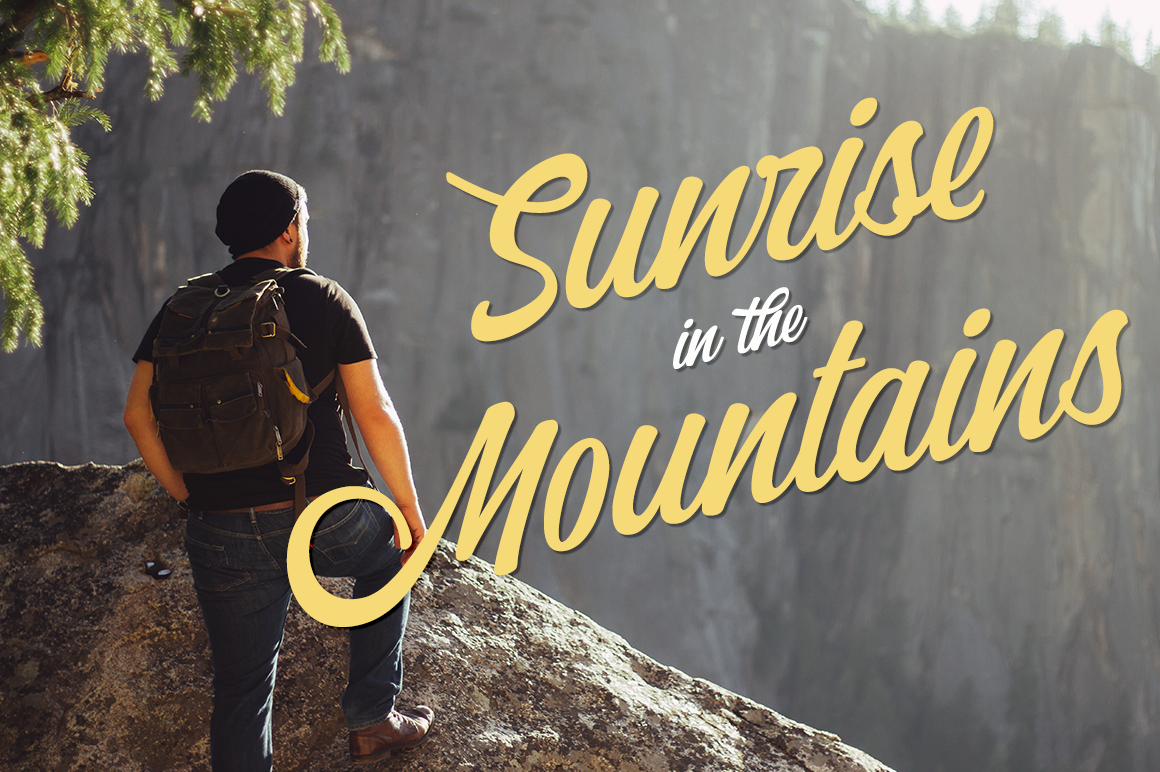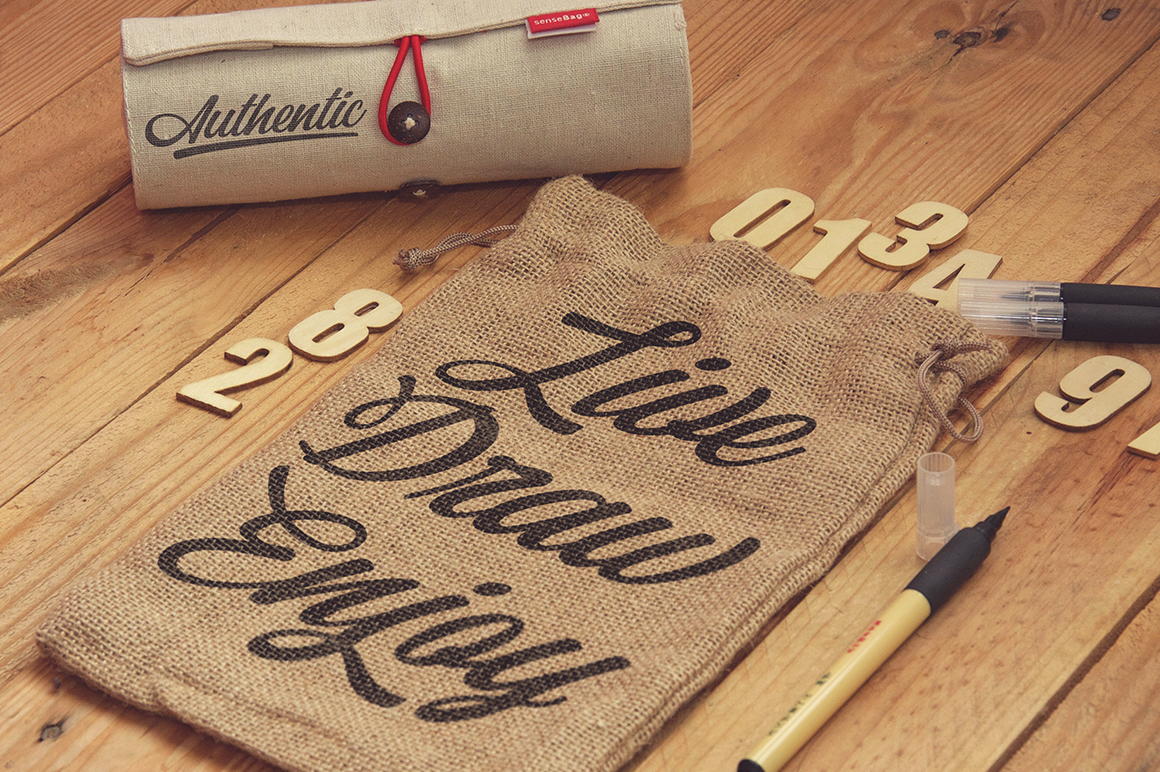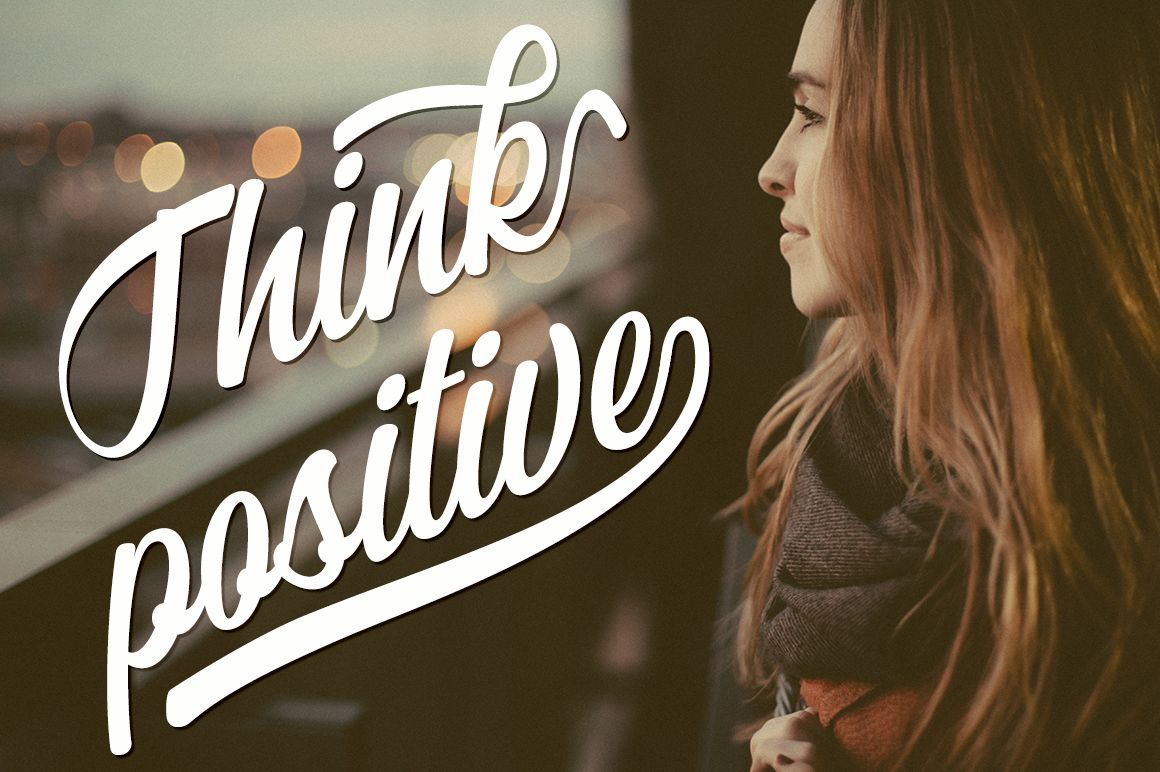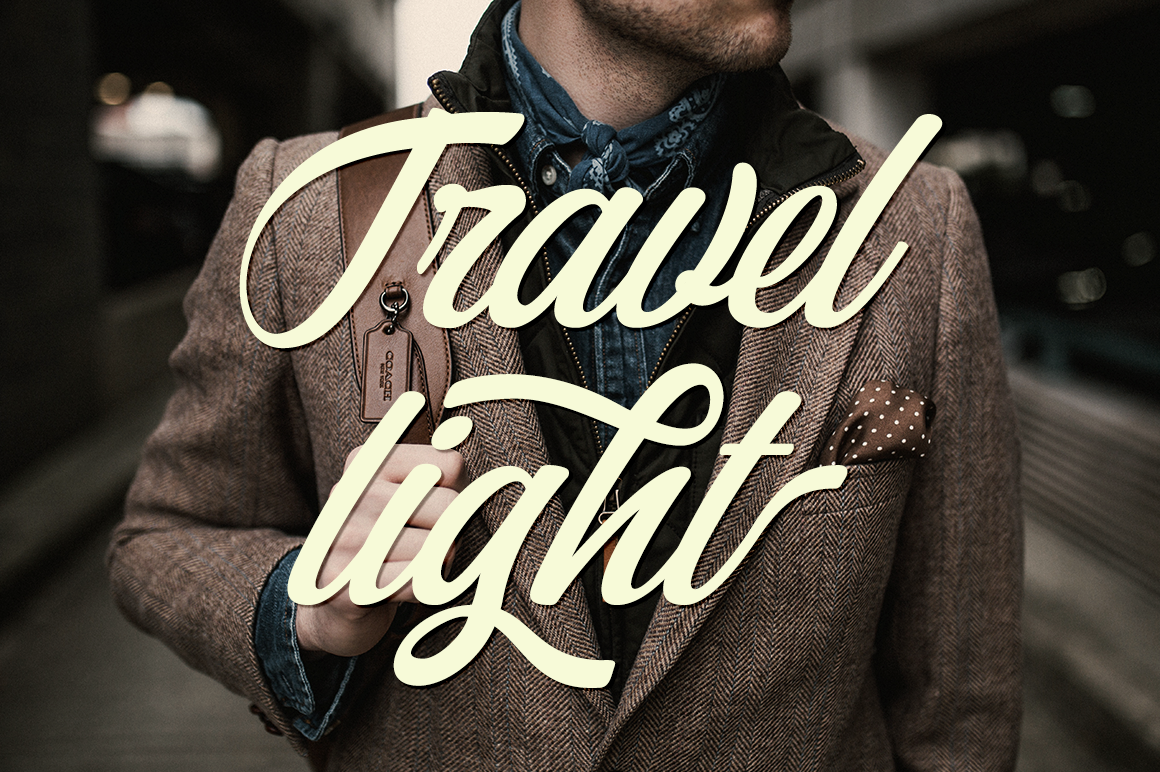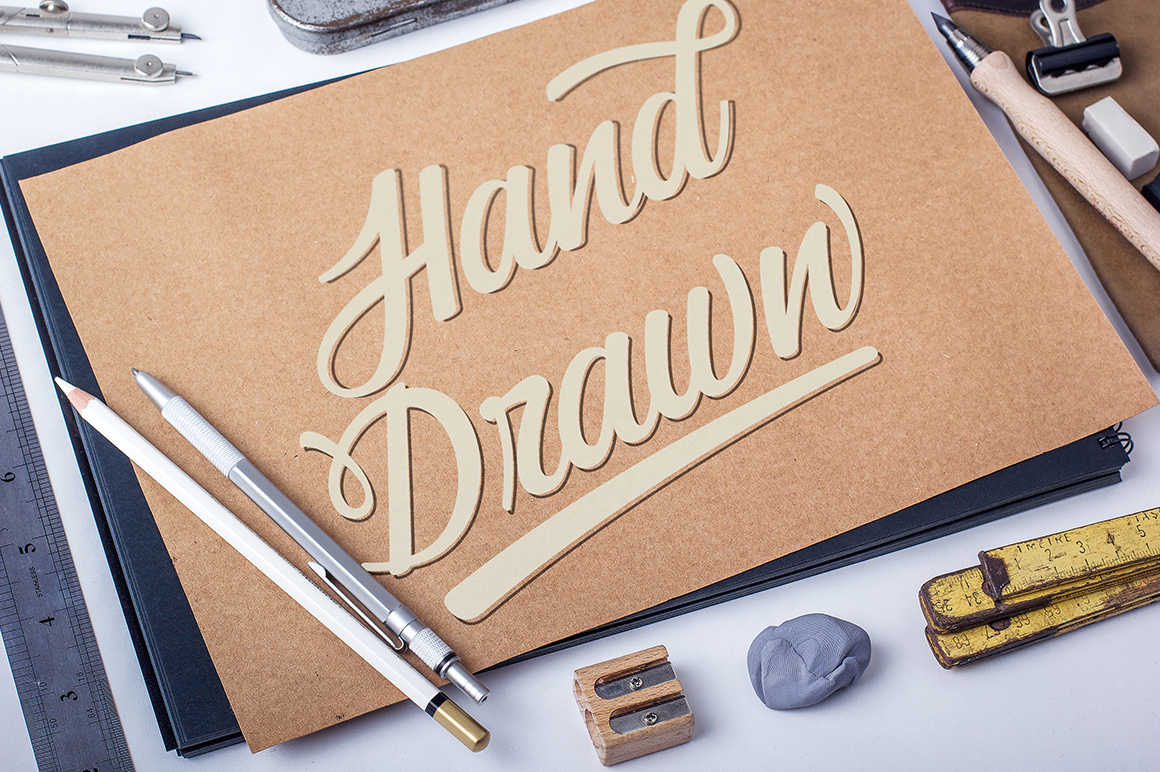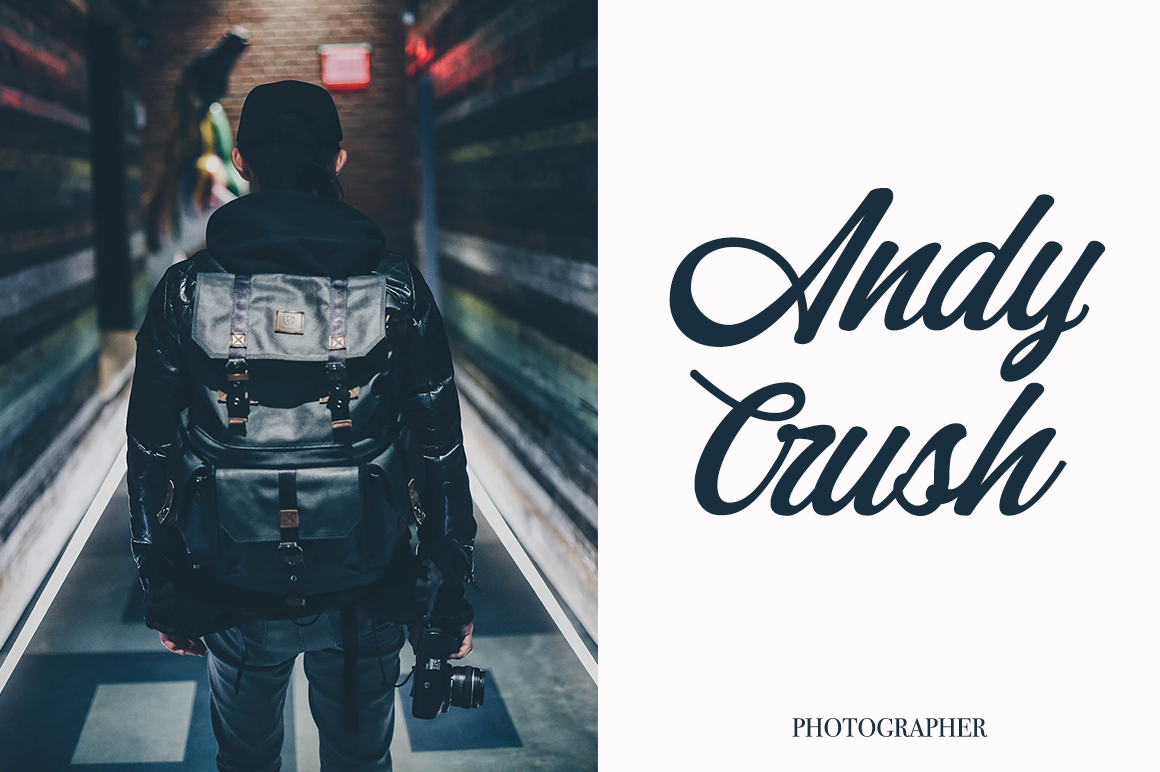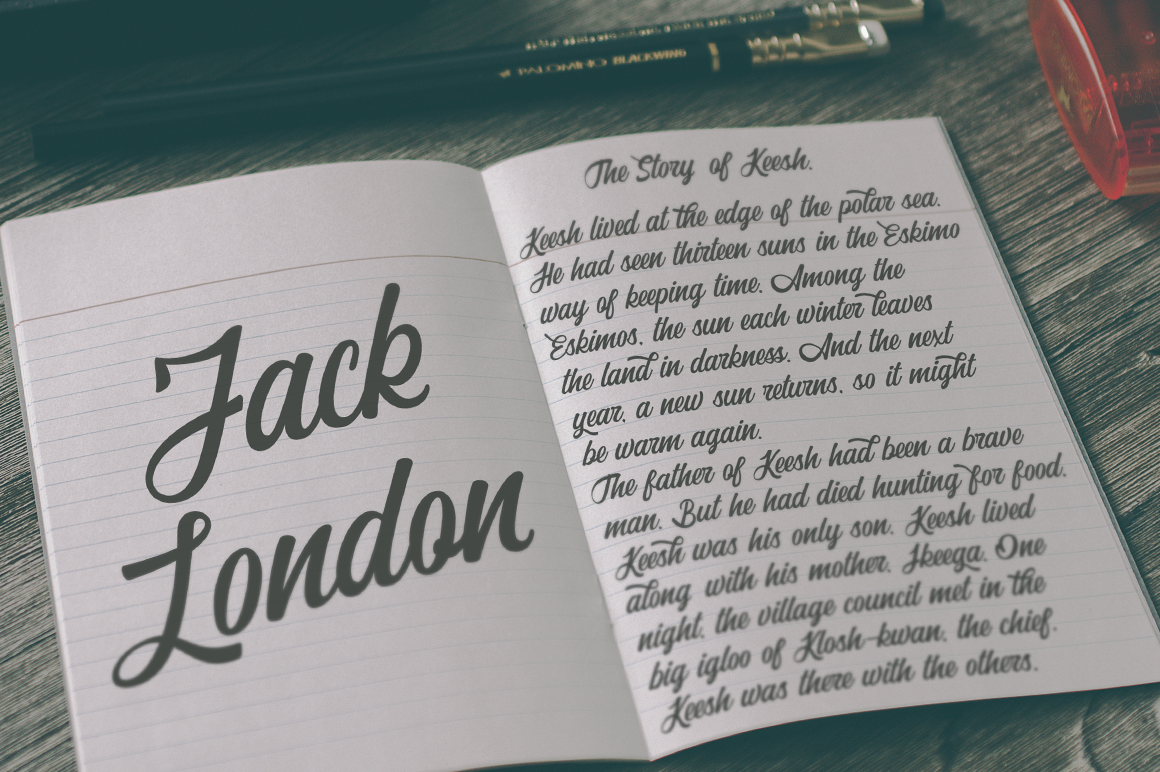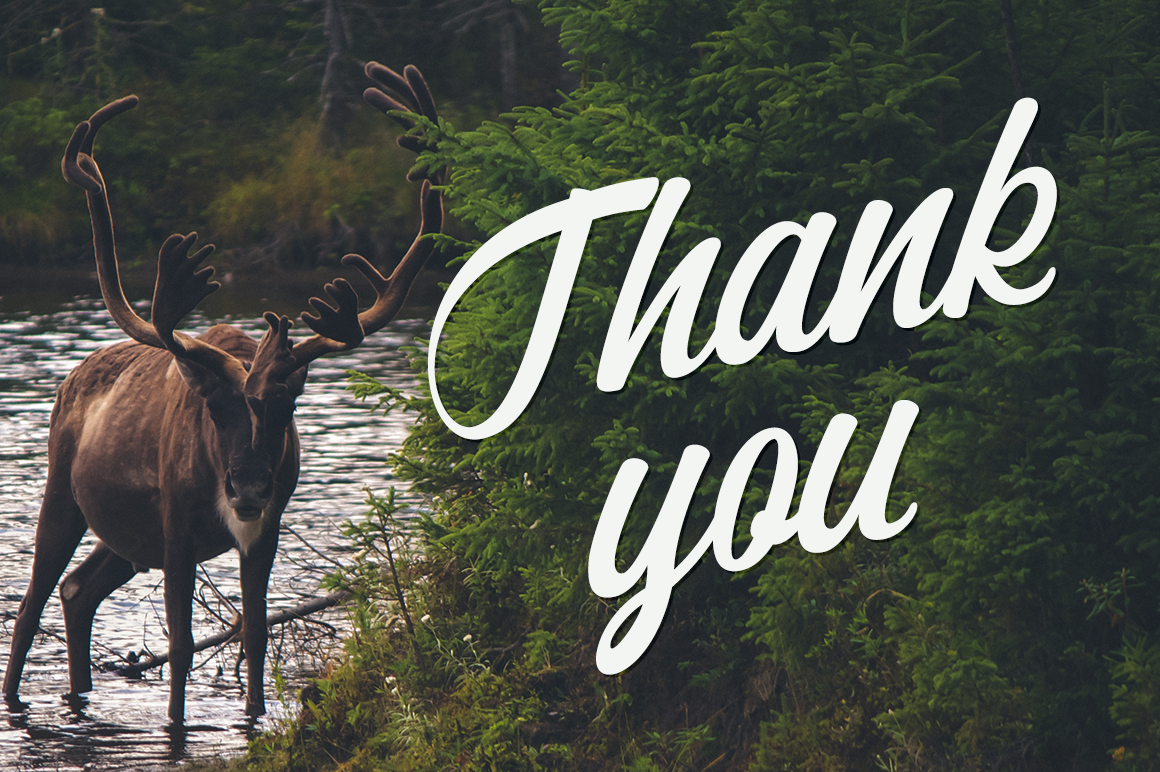
Adrenaline Font
About Adrenaline Font
Adrenaline is a beautiful and modern font, styled after mid-century logotype. Adrenaline is perfect for crafting a unique look to your type based designs.